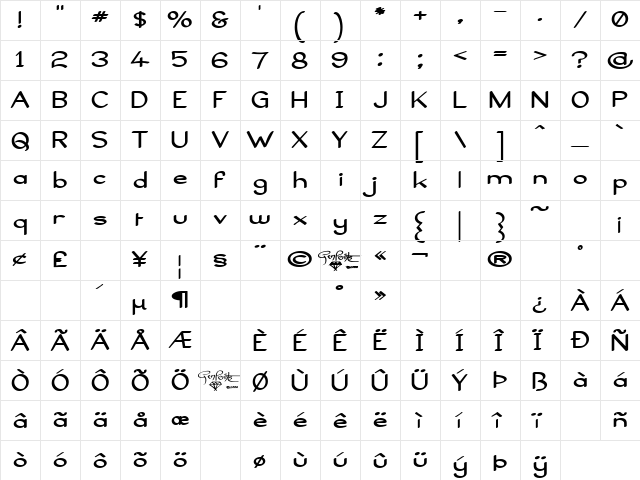
Elfar Normal Bold G98 Regular
Design Context for Elfar Normal Bold G98 Typeface
Elfar Normal Bold G98 offers clean, dependable letterforms without strong stylistic allegiance, making it a practical choice for designers who need flexibility. The heavy weight commands attention and anchors typographic hierarchies.